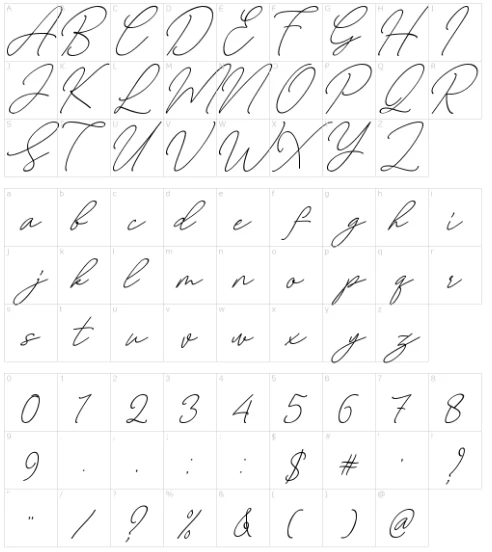
Hello there, buddy! August Script Font is a new Script and Handwritten font that we are talking about today. It’s a gorgeous modern script, signature, and display font that combines classic handwriting with a contemporary look. The font transitions from copperplate to contemporary typography with a dancing baseline, and a modern and delicate touch includes ligatures and alternates. August Script Bold is the font family of this typeface. This Font belongs to the Regular Font subfamily.
| Name | August Script Font |
| Designer | Meutuwah |